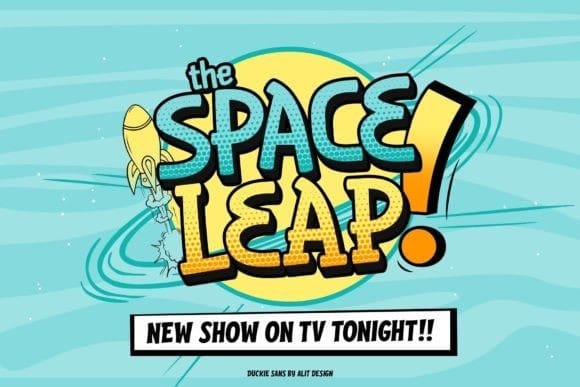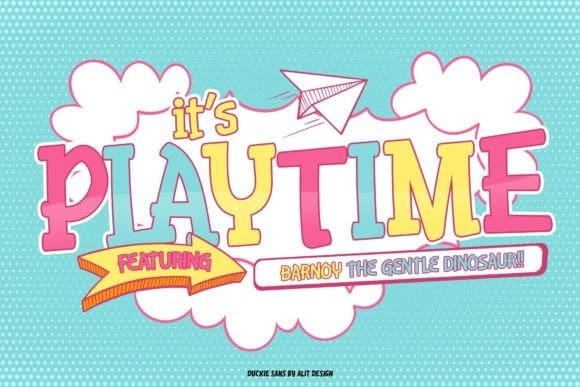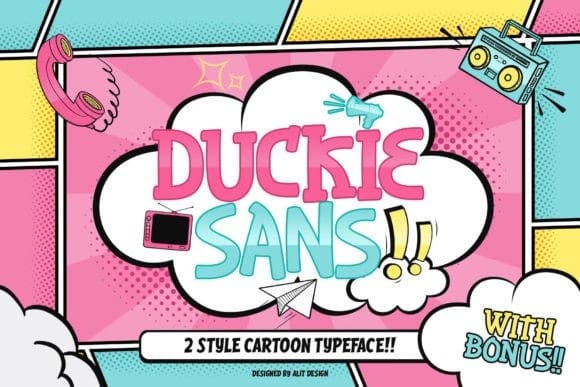
Duckie Sans Font
Duckie Sans Font is a cute and playful display font. Its cheerful personality and friendly vibe are perfect for creating kid-friendly designs, cartoonish posters, headlines, eye-catching social media posts, and more!